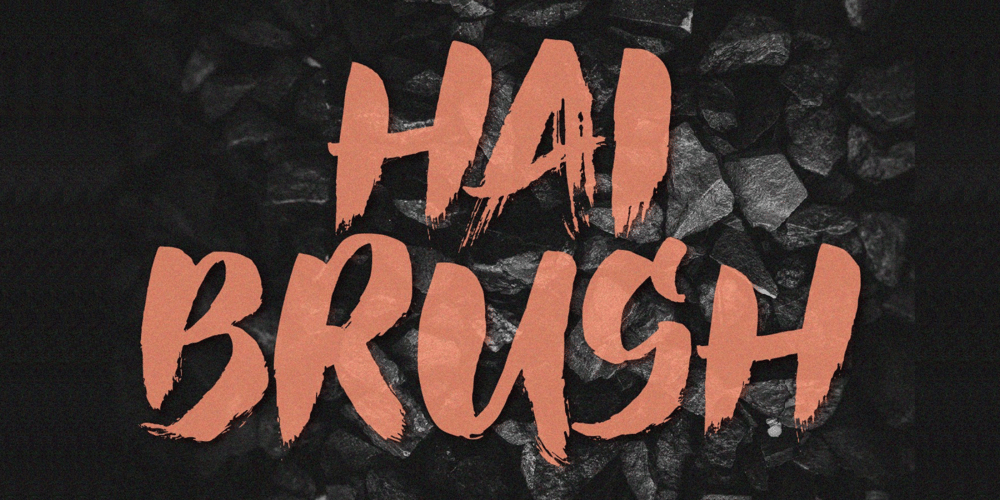
Hai Brush Font Family was designed by Irpan Maulana and published by Sabrcreative. Hai Brush contains 1 styles and family package options. Unleash your creativity with the all-caps captivating Hai Brush Font. This unique typeface effortlessly combines the raw energy of hand brush strokes with a touch of elegance, making it an exceptional choice for a variety of design endeavors. Whether you’re crafting logos, posters, or branding materials, Hai Brush Font adds an authentic, artistic flair to your projects.